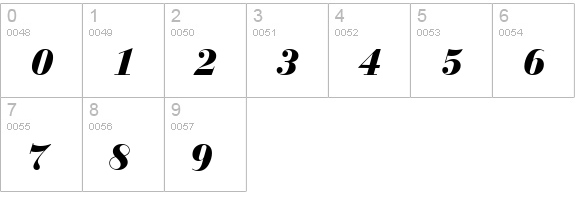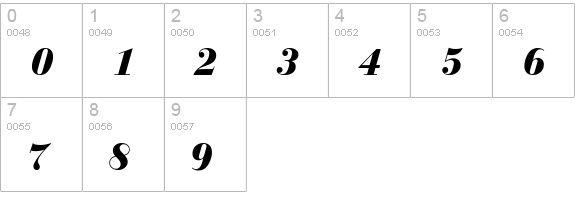
Bodoni-Display-BoldItalic Font Details
Bodoni-Display-BoldItalic font is a striking and elegant typeface that exudes sophistication and style. With its bold and italicized design, this font is perfect for making a statement in any creative project. The sharp serifs and clean lines give Bodoni-Display-BoldItalic a timeless and classic appeal that is sure to catch the eye. The best part? Bodoni-Display-BoldItalic font is available for free download at FontsMarket.com. Whether you're working on a print design, website, or any other project that requires a touch of elegance, this font is a great choice. Download Bodoni-Display-BoldItalic today and add a touch of class to your designs.